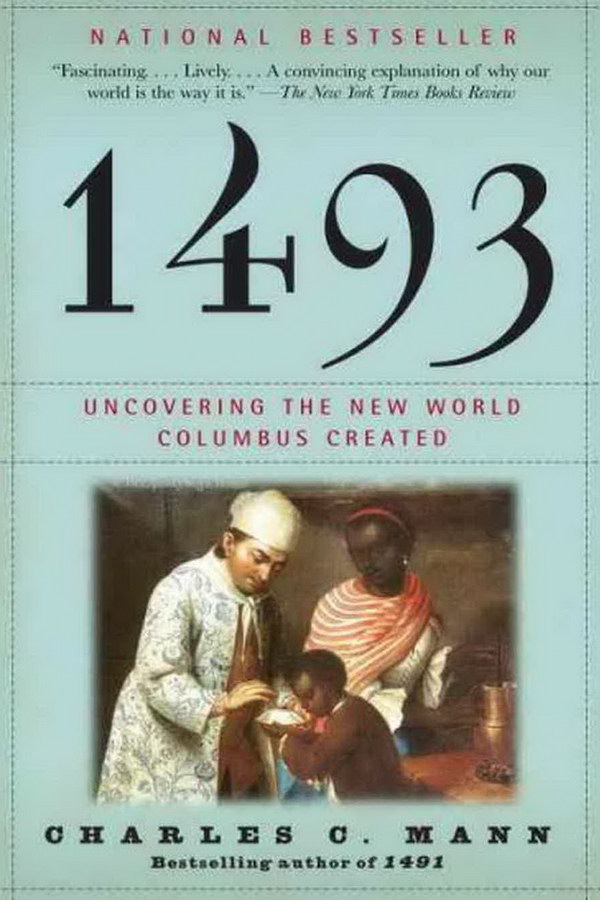
1493 Font
Book1493: Uncovering the New World Columbus Created is a non-fiction book by Charles C. Mann that explores the far-reaching consequences of Christopher Columbus's voyages to the Americas.
It is likely that the font utilized for the cover of "1493" is ATSkjald, a decorative typeface designed for posters and books. Further information on this typeface is available here.